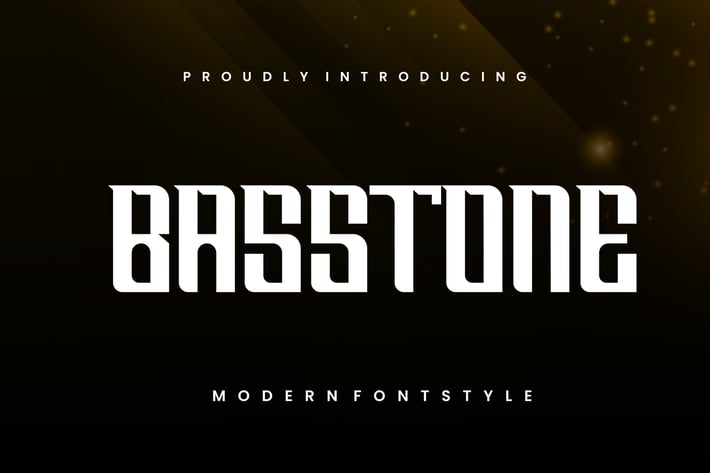
Basstone Modern Font Style.
Introducing our new product the name is Basstone Font. Modern Decorative Fonts that feels beautiful classy, elegant, and modern. This font is perfectly suited for a wide variety of projects, such as signature, stationery, logo, wedding, typography quotes, magazine or book cover, website header, branding, packaging design, and more. Also, fashion-related branding or editorial design displays both masculine and feminine qualities.